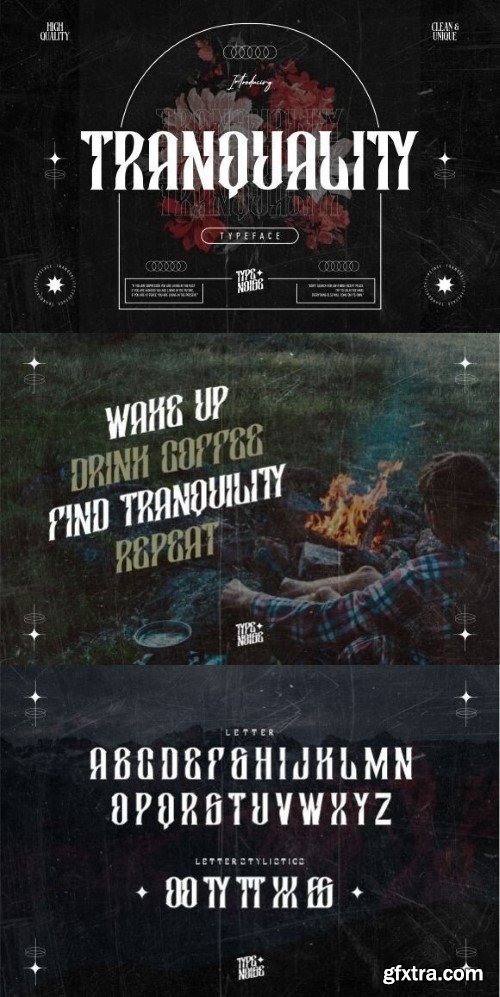
tranquility font
Introducing Tranquality Font, a nostalgic nod towards vintage aesthetics, now available in OTF and TTF formats. Drawing inspiration from classic labels, vintage logos, and nostalgic posters, Tranquality captures the essence of a bygone era yet perfectly fits into contemporary design narratives. Whether you’re looking to kindle the flames of vintage passion in your project or seeking that iconic touch, Tranquality Font provides the stylistic versatility you need. Rest assured, should you require assistance enjoying the beauty of this font, I stand ready to provide the support you need. Here’s to your creativity journey with Tranquality Font, thank you.